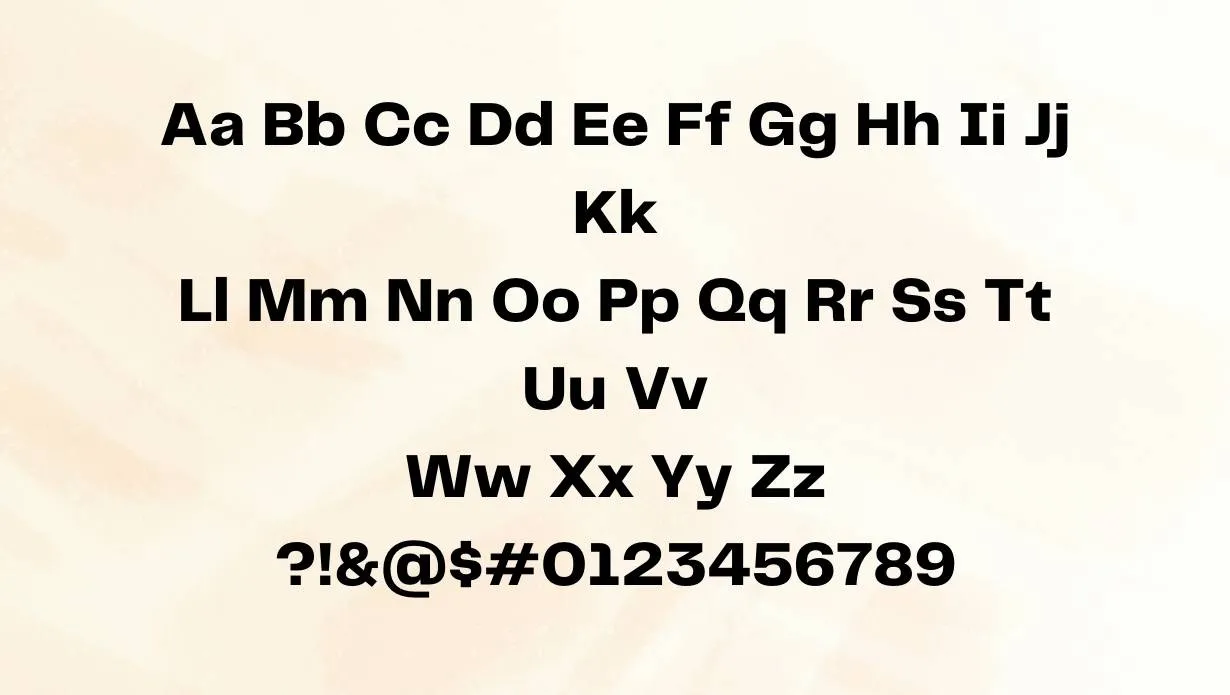
Telegraf Font is akin to a hidden message in your writing. Its letters carry a mysterious tone, transforming your words into a captivating puzzle. Uncover the enigma within each letter as you dive into the world of Telegraf Font. Continue exploring to unravel the secrets hidden in your writing.
When you use Telegraf Font, it’s like uncovering a hidden treasure map, adding curiosity and adventure to every word. Choose Telegraf Font when you want your writing to have the mysterious allure of a secret message, creating a sense of excitement.
| Name | Telegraf Font |
| Designer | Nick Losacco Samuel Salminen |